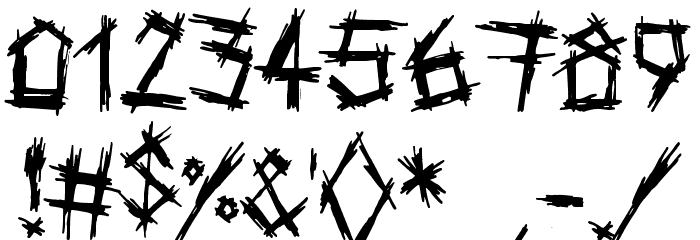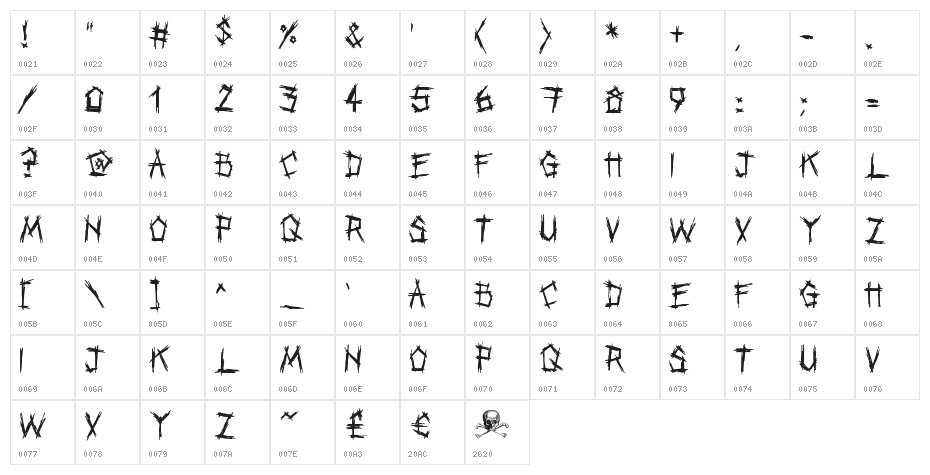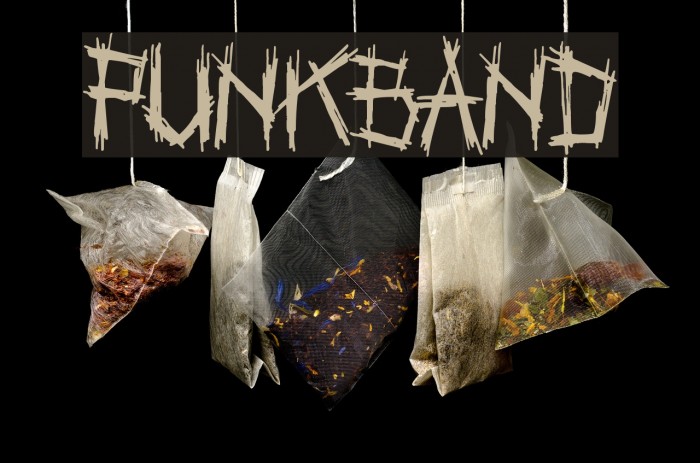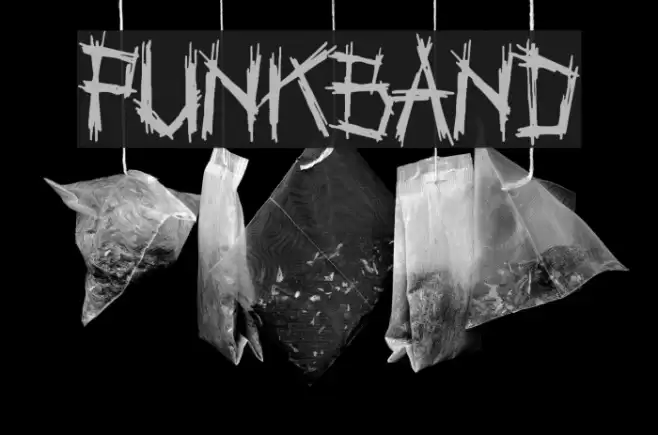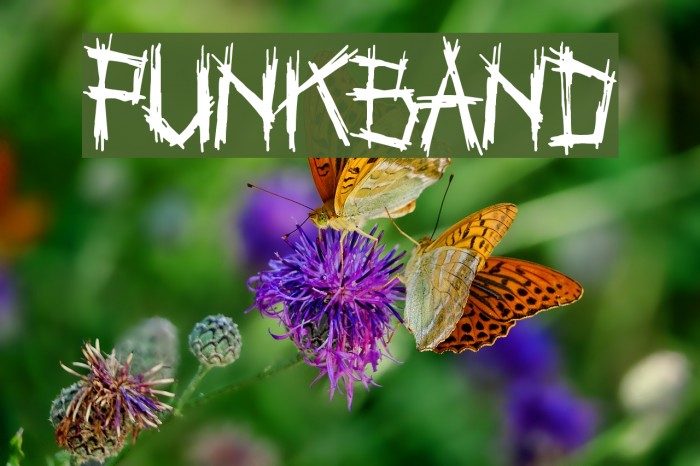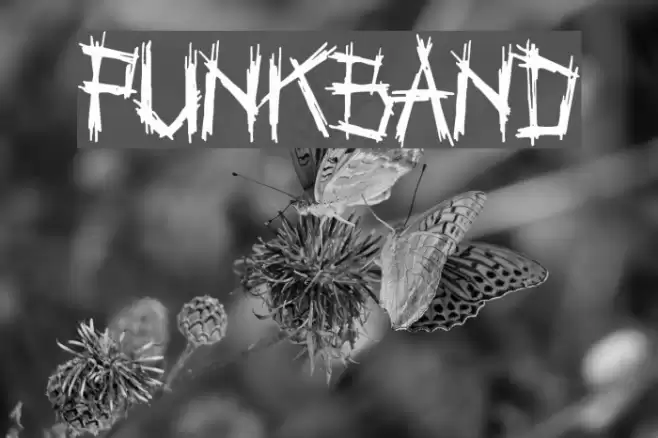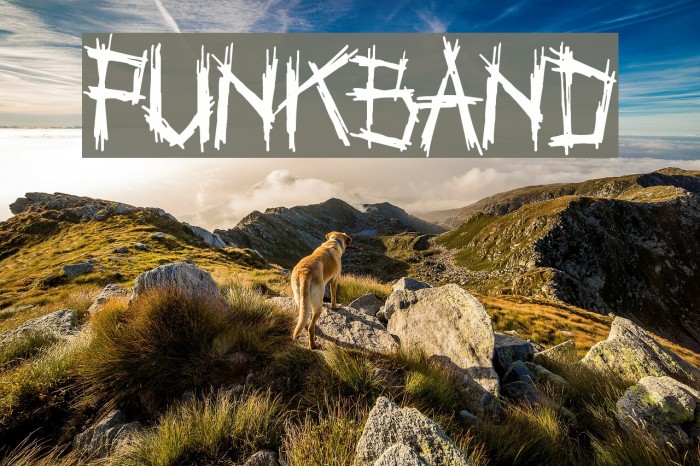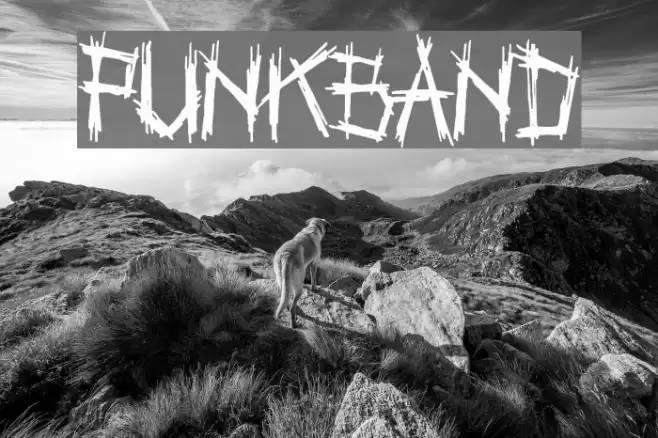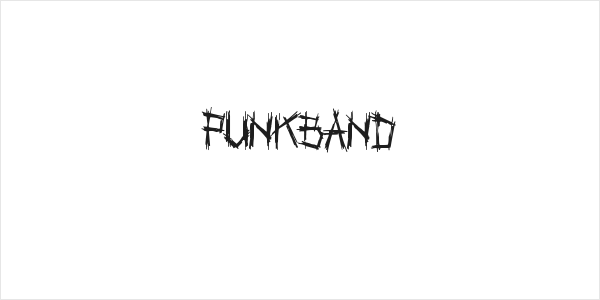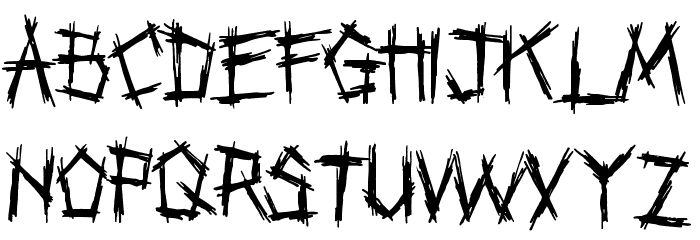
Punkband Font
Punkband Description
This font exudes a raw, edgy aesthetic reminiscent of punk rock culture. The characters are designed with a jagged, distressed appearance, giving them a rebellious and unconventional vibe. Each letter and number is constructed with sharp, angular strokes that mimic the look of hastily drawn graffiti or hand-cut stencils. The font's chaotic style is both eye-catching and bold, making it ideal for projects that require a strong visual impact. Its unique design is perfect for capturing attention and conveying a sense of urgency or defiance. The irregularity in the strokes adds to the font's dynamic and energetic feel, making it suitable for creative and artistic endeavors.
| Overall Style | Punk, Edgy, Rebellious |
| Proposed Projects | Album covers, band posters, streetwear branding, rebellious-themed events. |